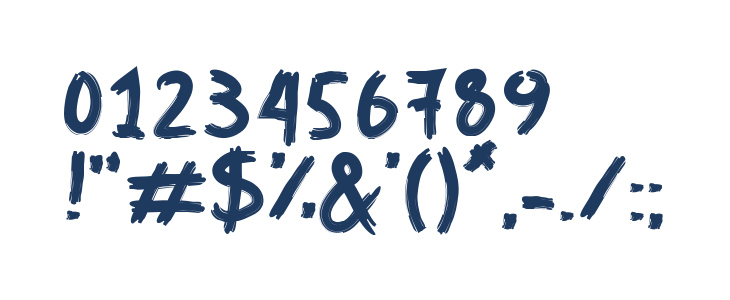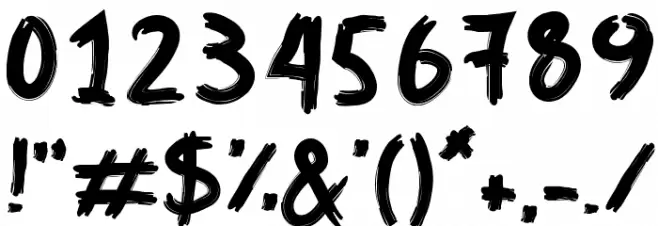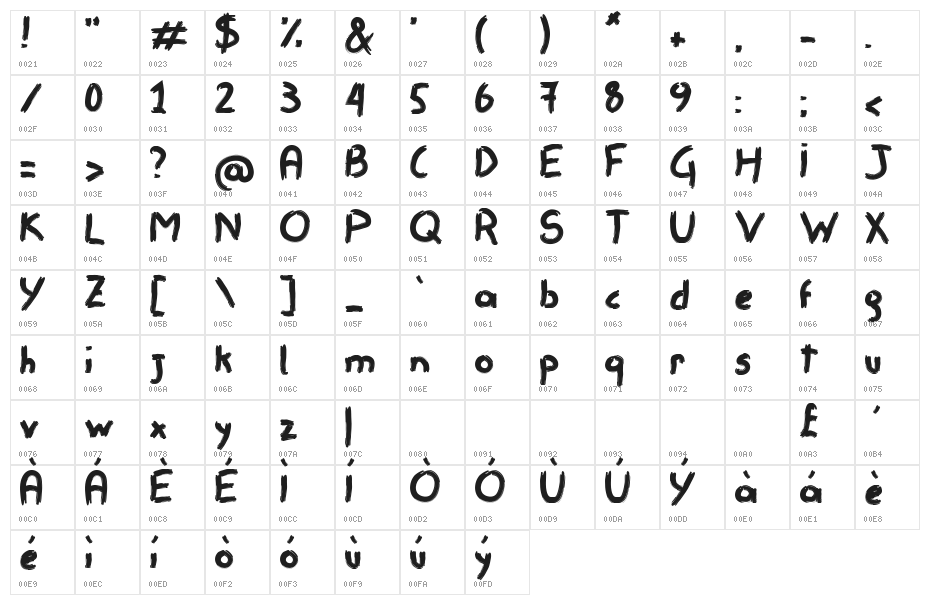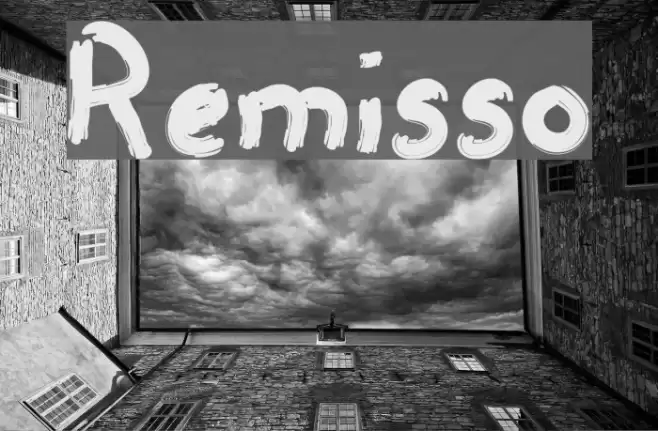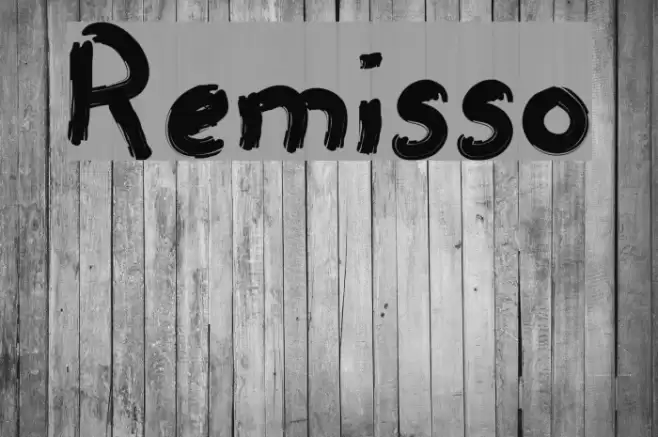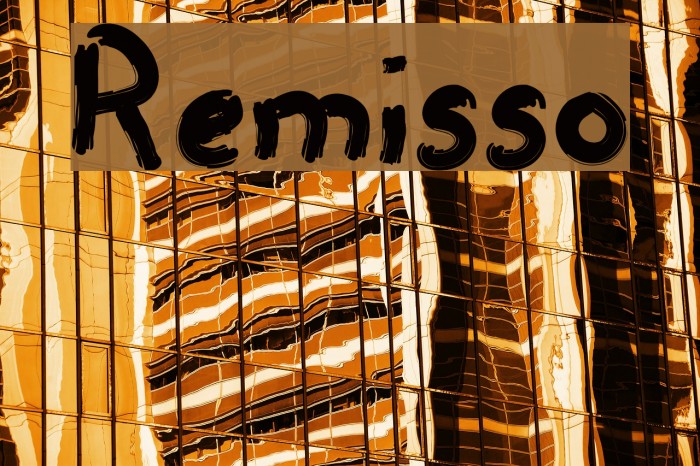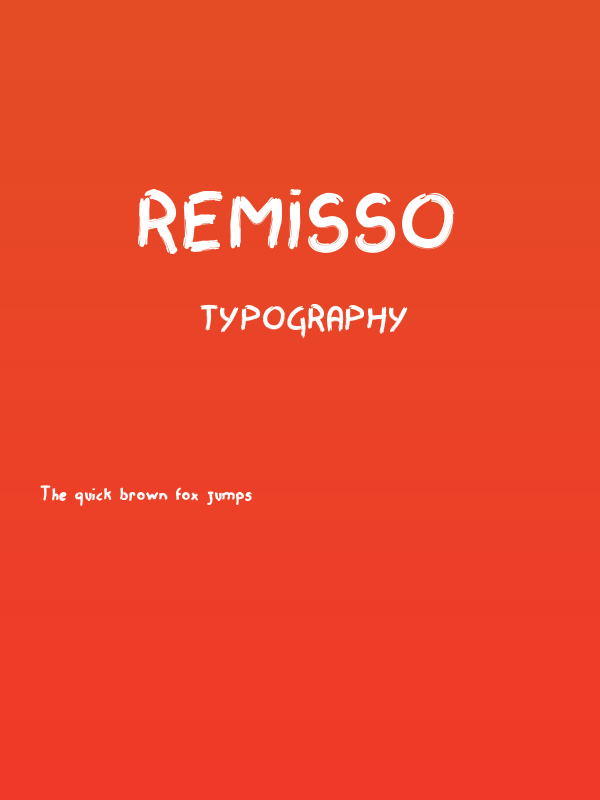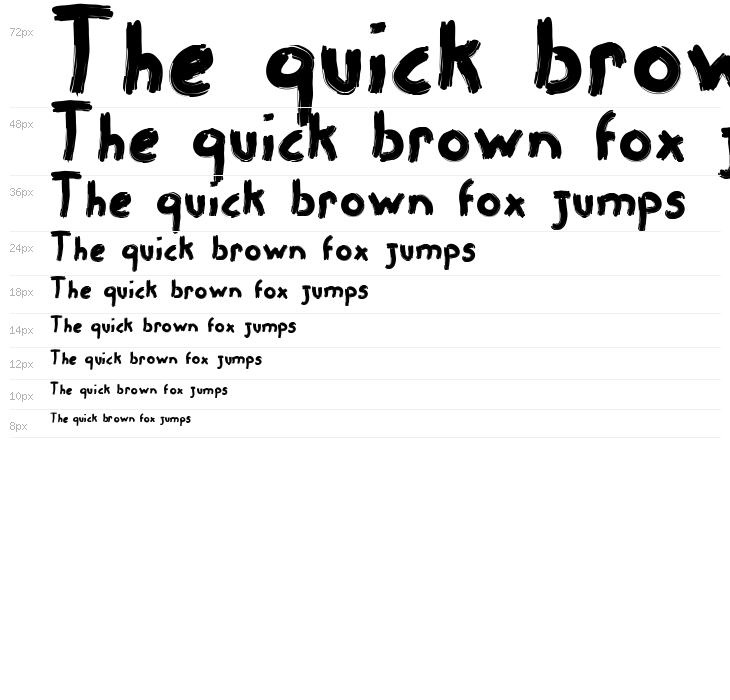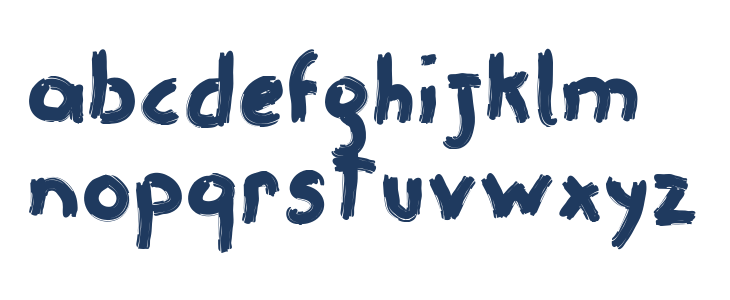
Remisso Font
Remisso Description
This font features a bold, brush-like appearance with a hand-painted aesthetic. The characters are uneven and dynamic, giving a sense of movement and energy. The strokes are thick and vary in width, creating a high contrast between thick and thin areas. This style is reminiscent of expressive calligraphy, with a casual and artistic flair. The uppercase and lowercase letters maintain a consistent style, while the numbers and special characters follow the same expressive design. The overall look is both playful and bold, making it suitable for creative and eye-catching designs.
| Proposed Projects | Ideal for posters, artistic branding, event invitations, and creative social media graphics. |